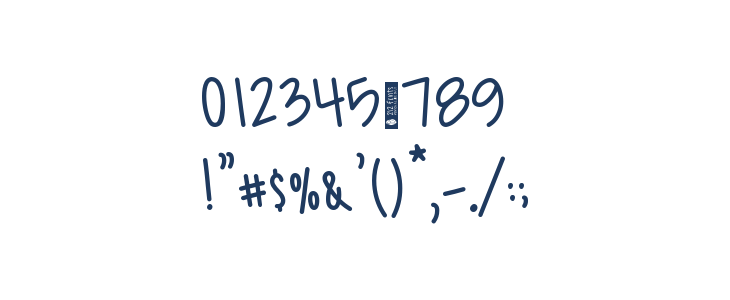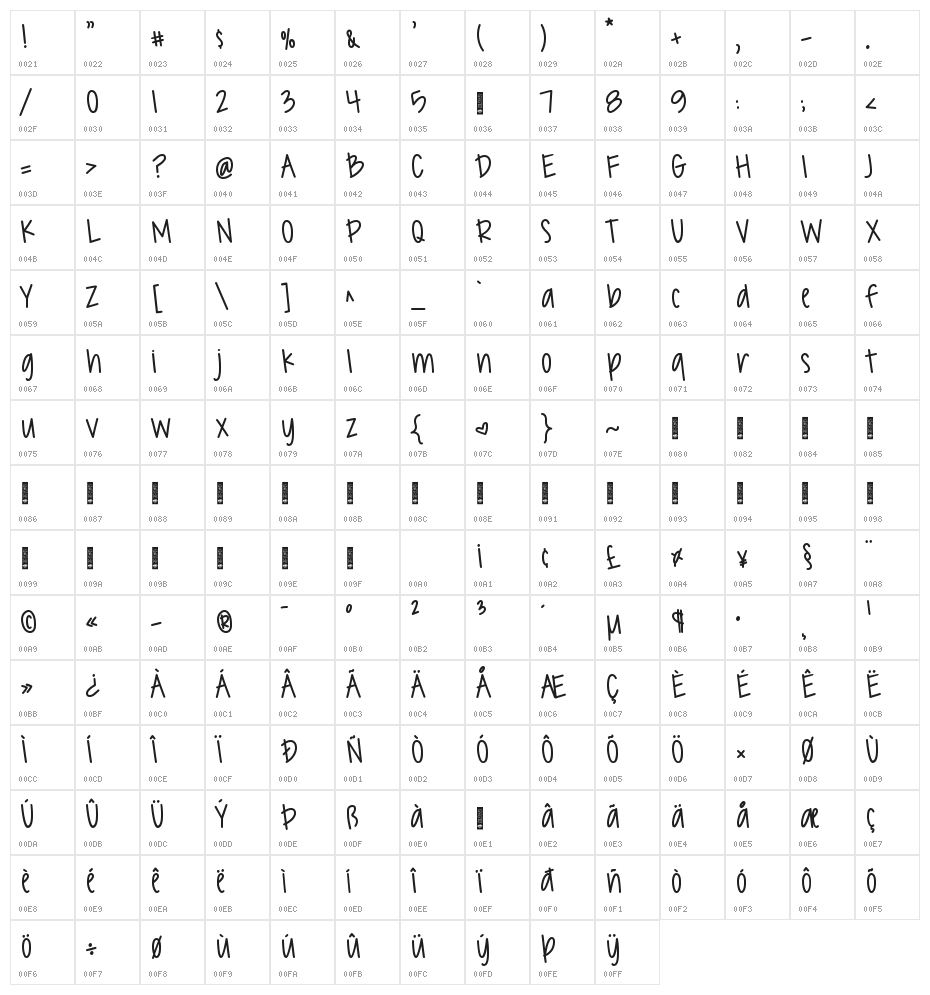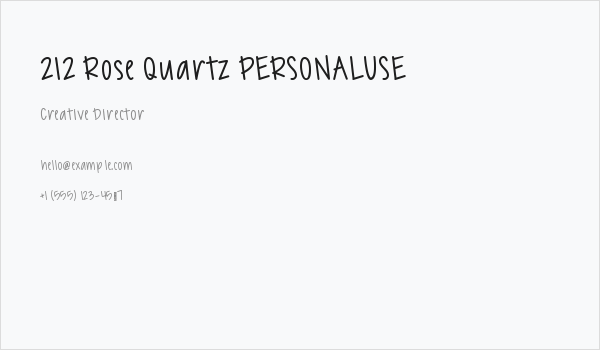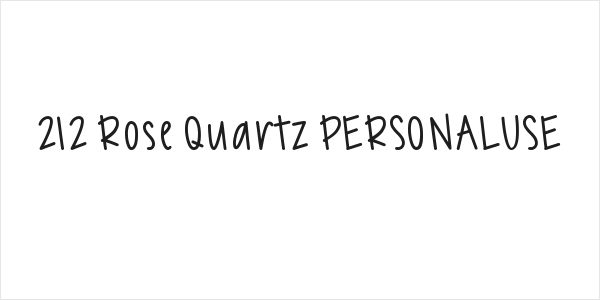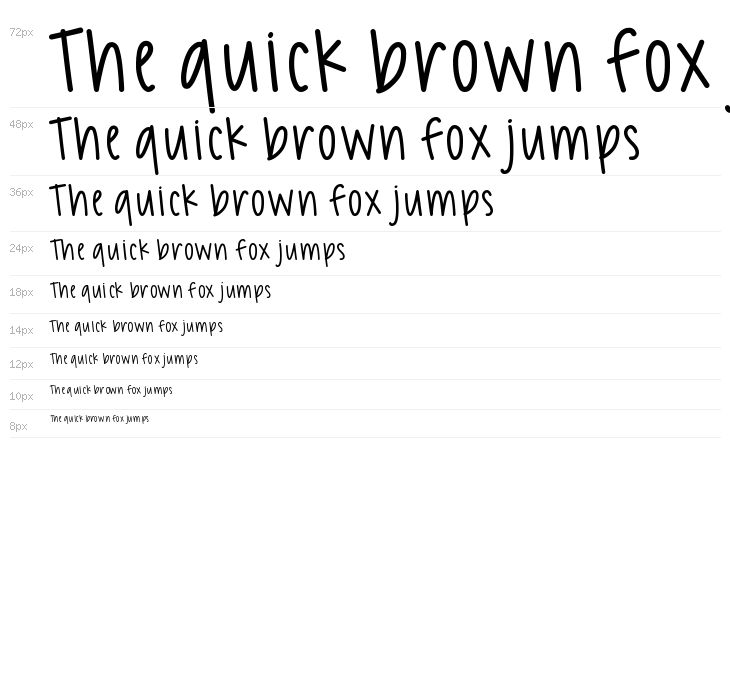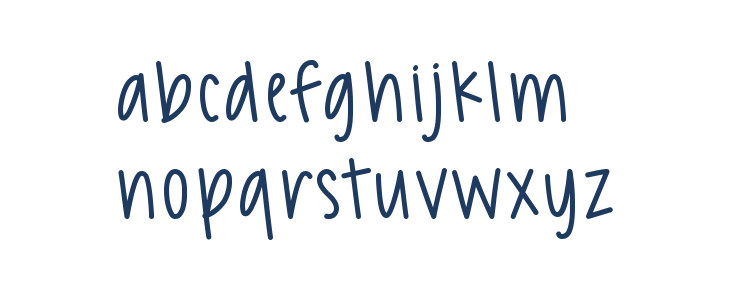
212 Rose Quartz PERSONALUSE Font
212 Rose Quartz PERSONALUSE Description
A playful handwritten sans-serif font with tall, narrow letters and consistent stroke width. The characters have a casual, informal appearance with slightly irregular lines, giving a friendly and approachable feel.
| Overall Style | Playful, Informal, Modern |
| Use Case | Headlines, Short text, Quotes, Invitations |
| Proposed Projects | Greeting cards, children's books, posters, social media graphics, informal branding. |